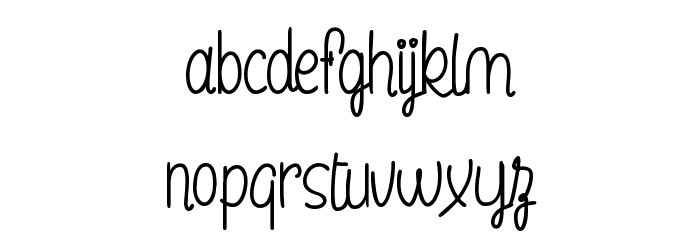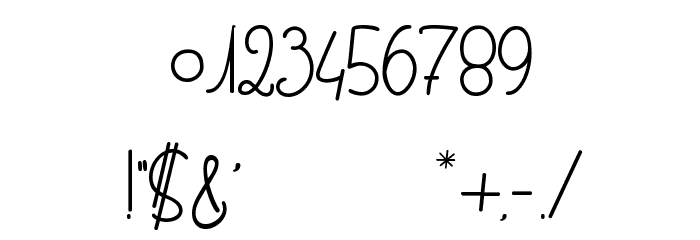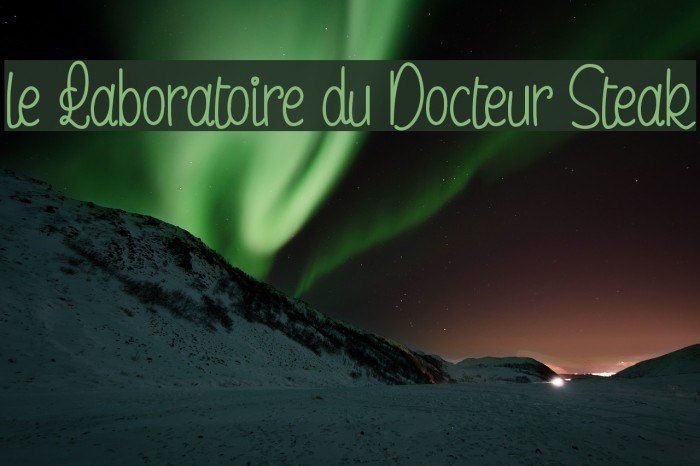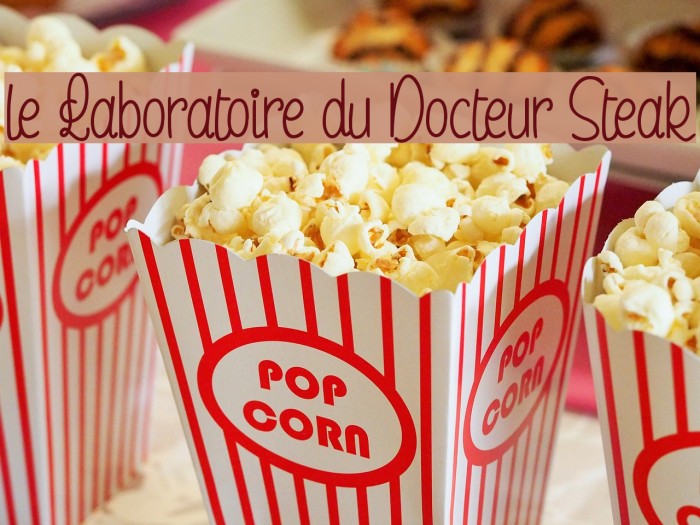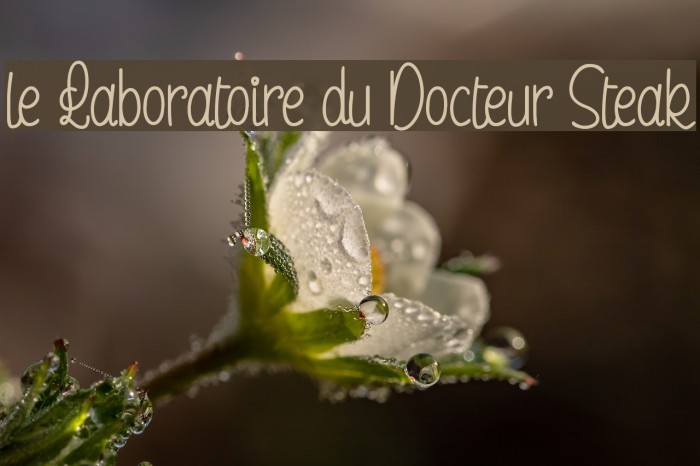
le Laboratoire du Docteur Steak Font
This font features a playful and whimsical style, characterized by its flowing, handwritten appearance. The letters are elongated with a slight slant, giving it a casual yet elegant look. The uppercase letters are distinct with unique flourishes, while the lowercase letters maintain a consistent flow. Numbers and special characters are designed to match the overall aesthetic, ensuring a cohesive look across all text. The font's playful nature makes it suitable for creative projects that require a touch of personality.
A playful, handwritten font with elongated, flowing characters.
- Proposed Projects: Ideal for greeting cards, invitations, children's books, and creative branding projects.
- Category: Handwritten
- Overall Style: Playful
- Use Case: Headlines, Creative projects